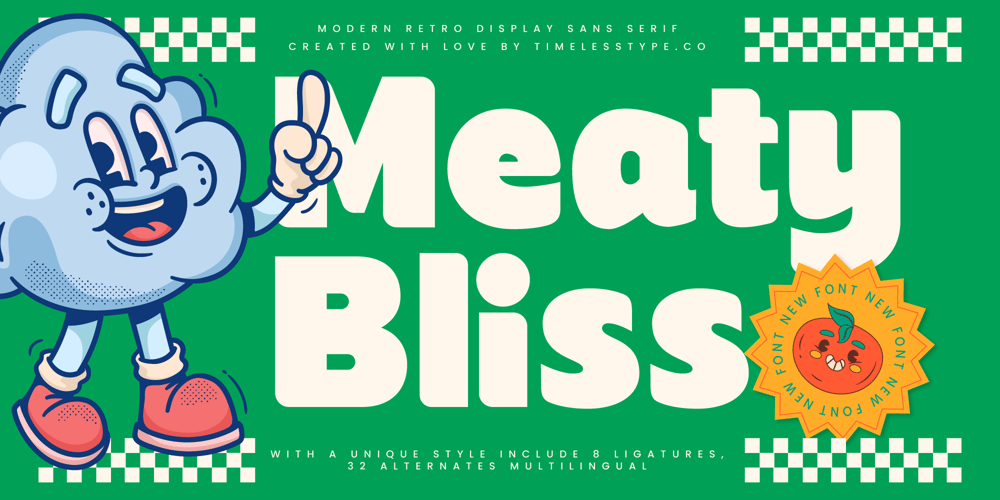
Meaty Bliss Font Family was designed by Heru Utama Putra and published by Timelesstype Studio. Meaty Bliss contains 2 styles and family package options. Meaty Bliss – Modern Retro Display Sans Serif , from Timelesstype , Suitable for any projects such as: logos, branding projects, homeware designs, product packaging, mugs, quotes, posters, shopping bags, t-shirts, book covers, name card, invitation cards, greeting cards, label, photography, watermark, special events, and all your other luxury and beautiful projects that need a Luxury Serif taste.